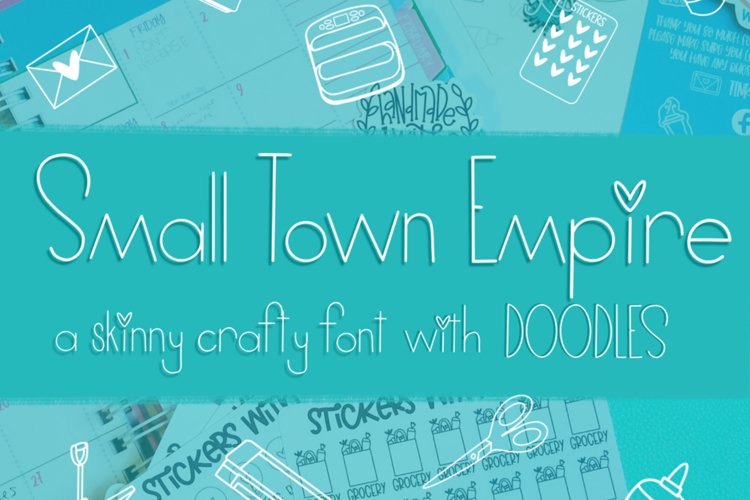
Small Town Empire Font
This fun skinny crafty font is the FIRST font release for Tinker & Teal but definitely won't be the last! Not only do you get the skinny font it also comes with a doodle font as well!!